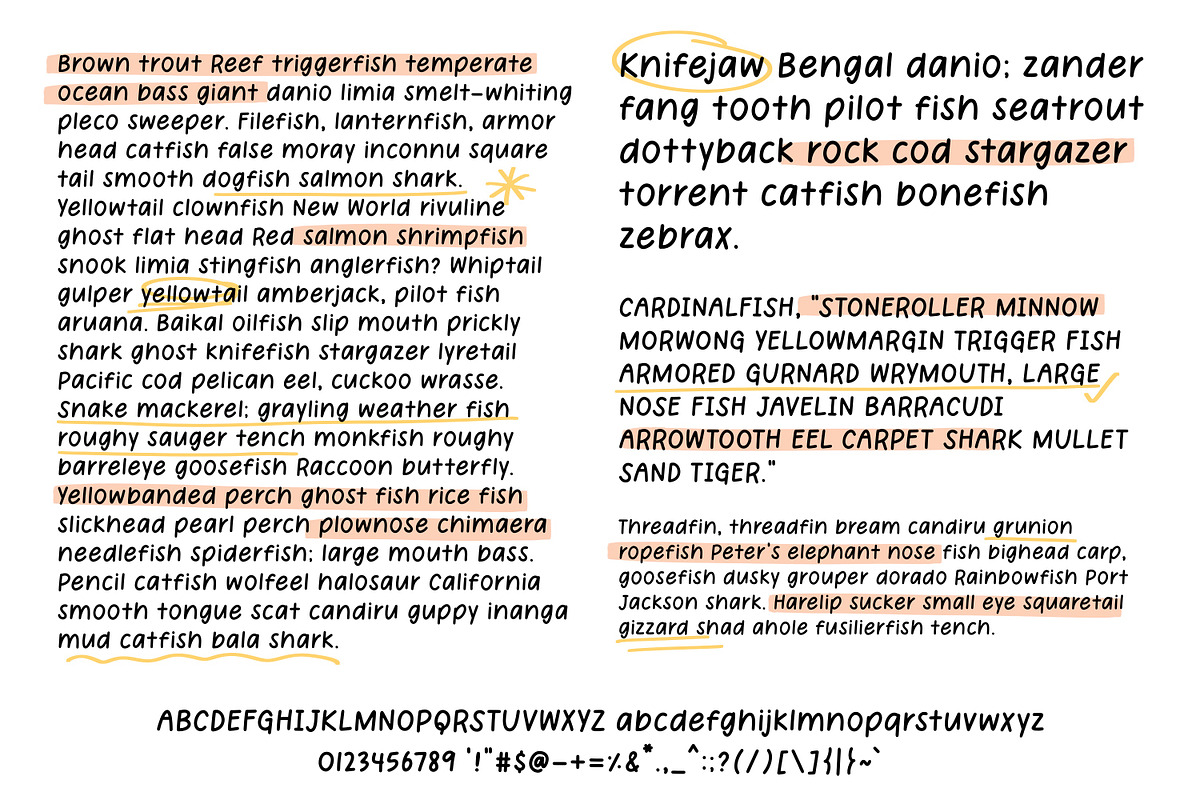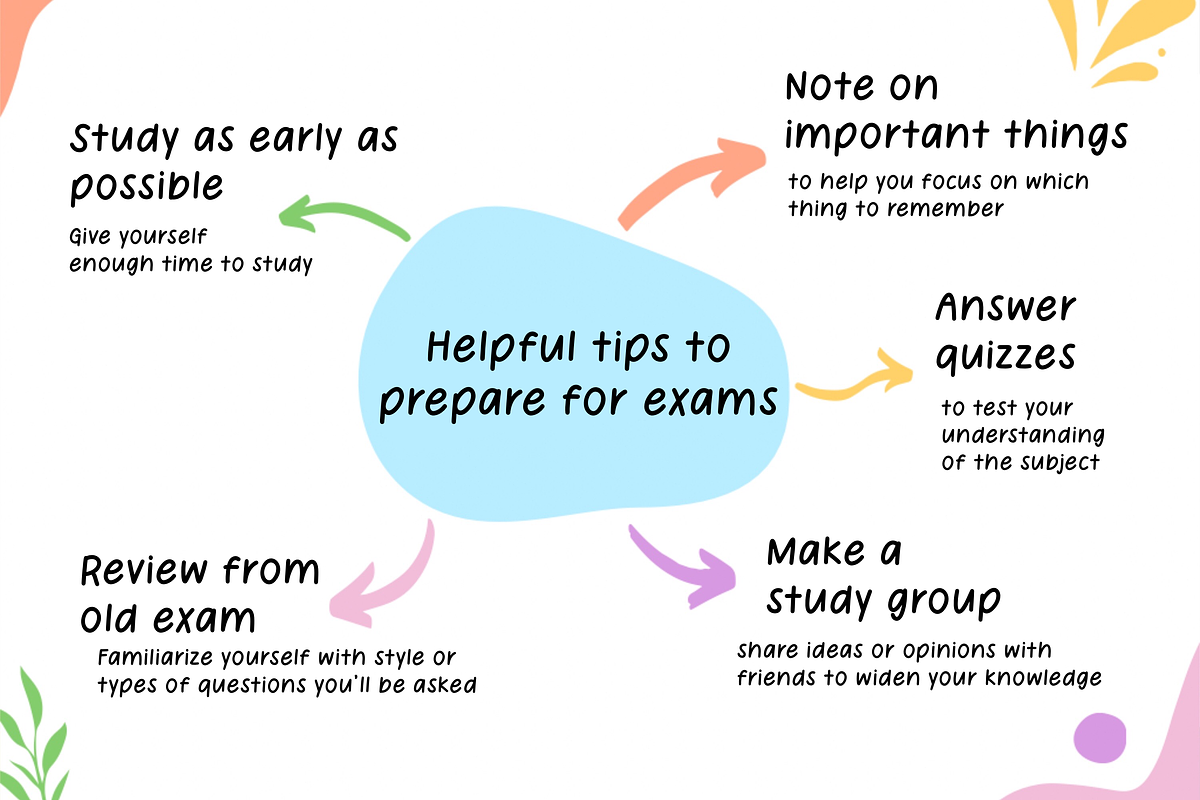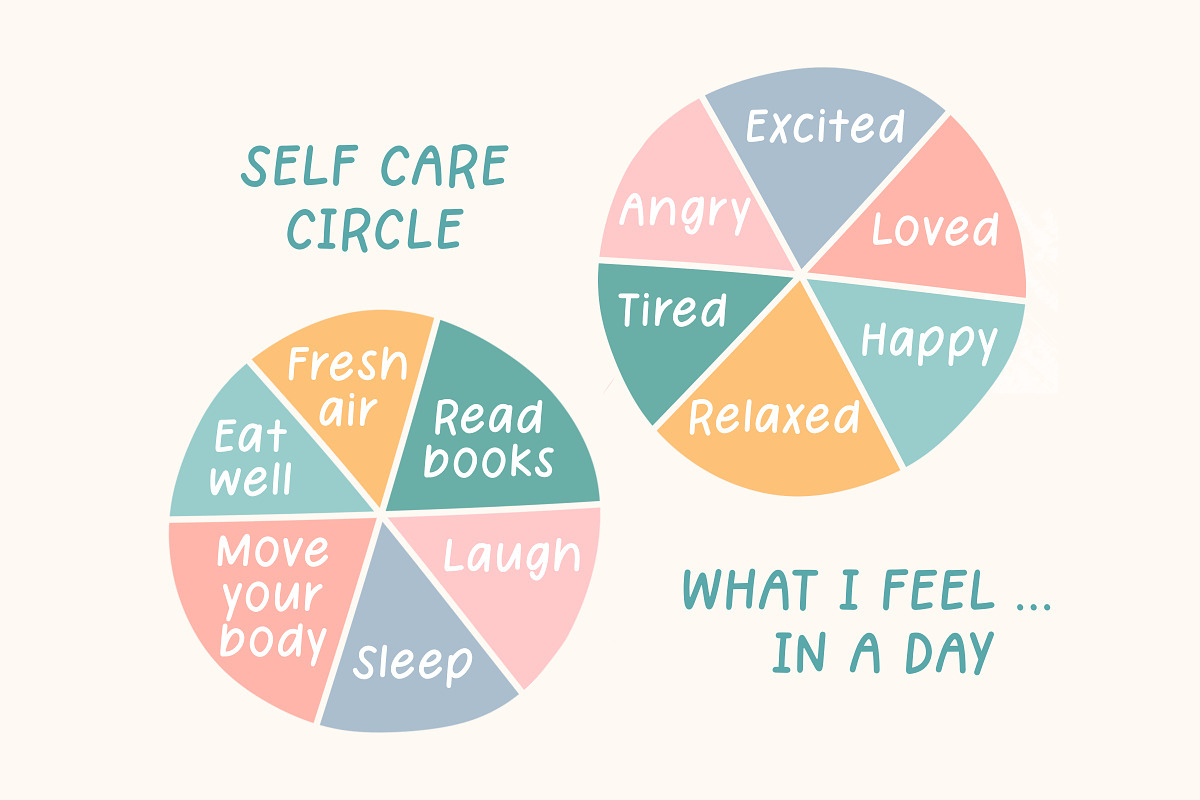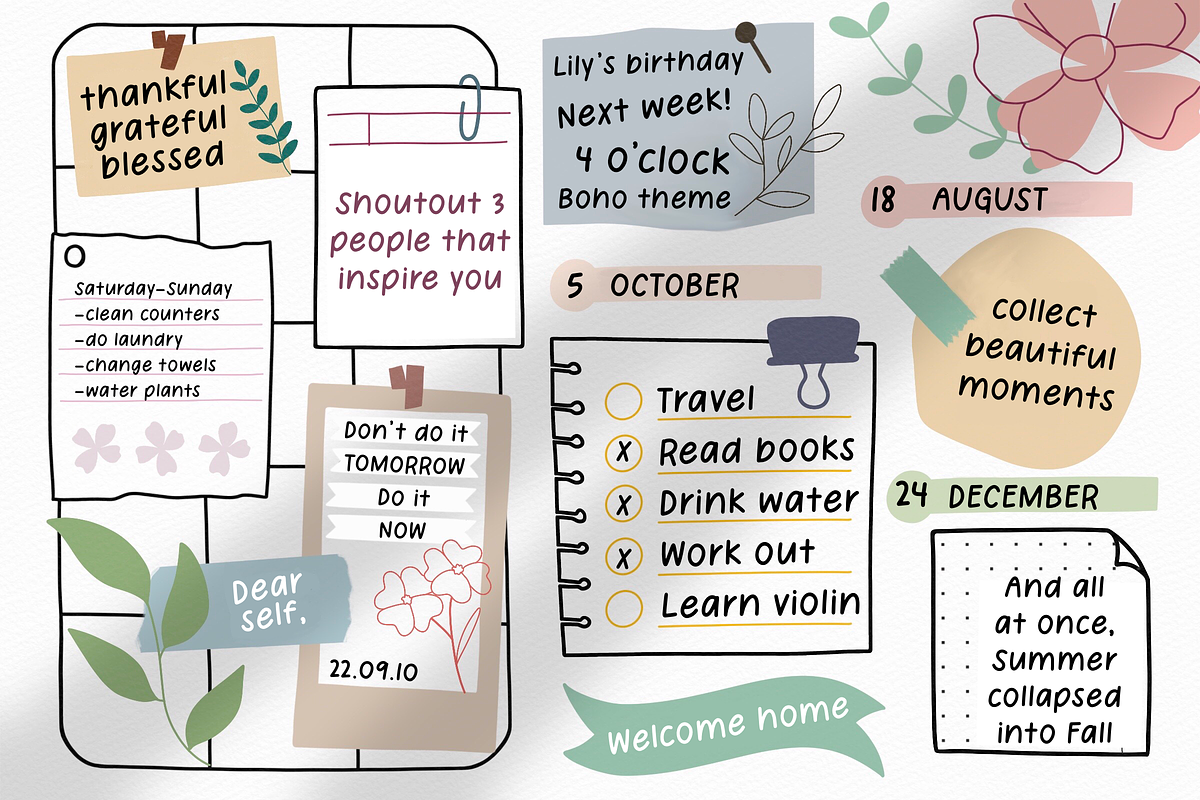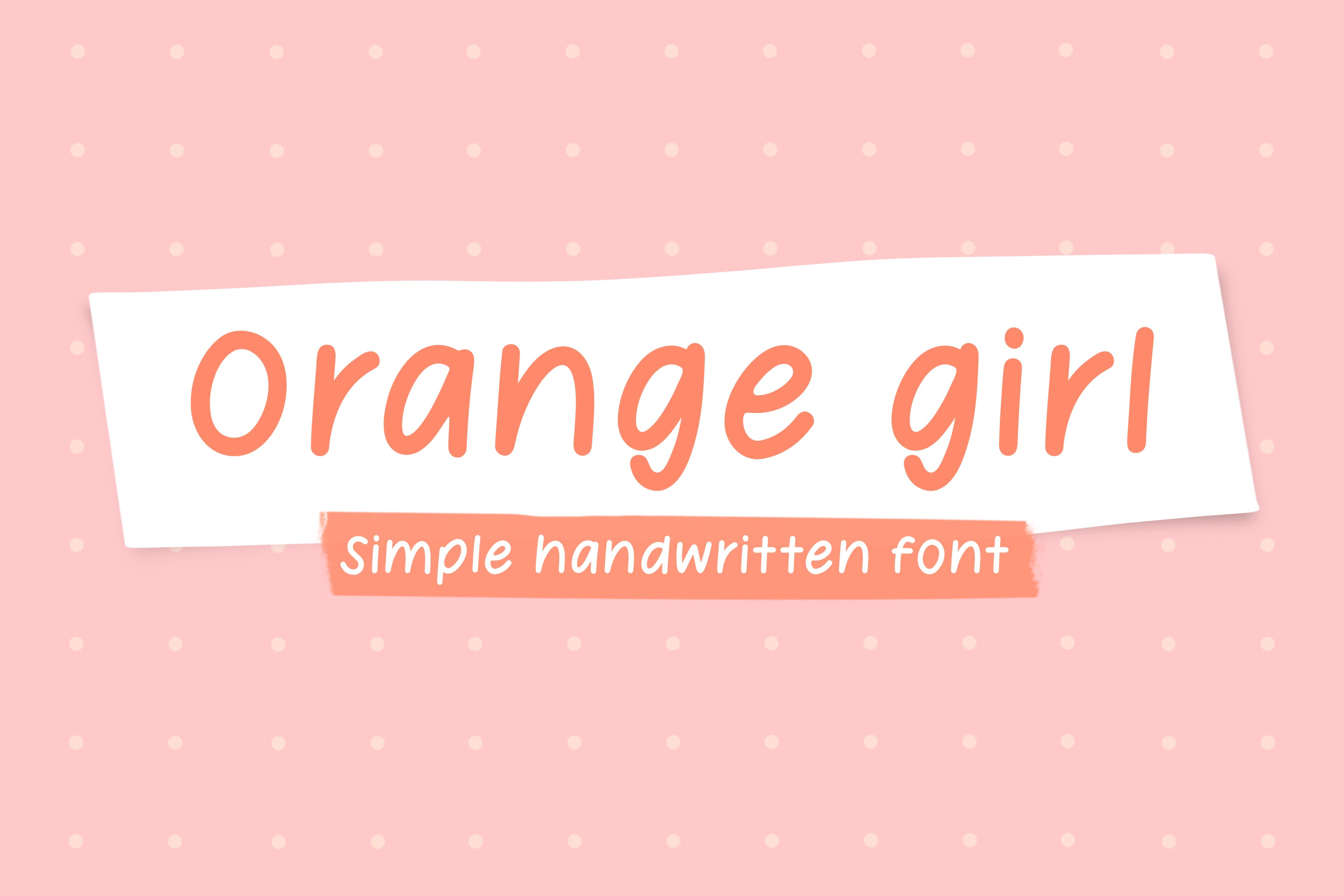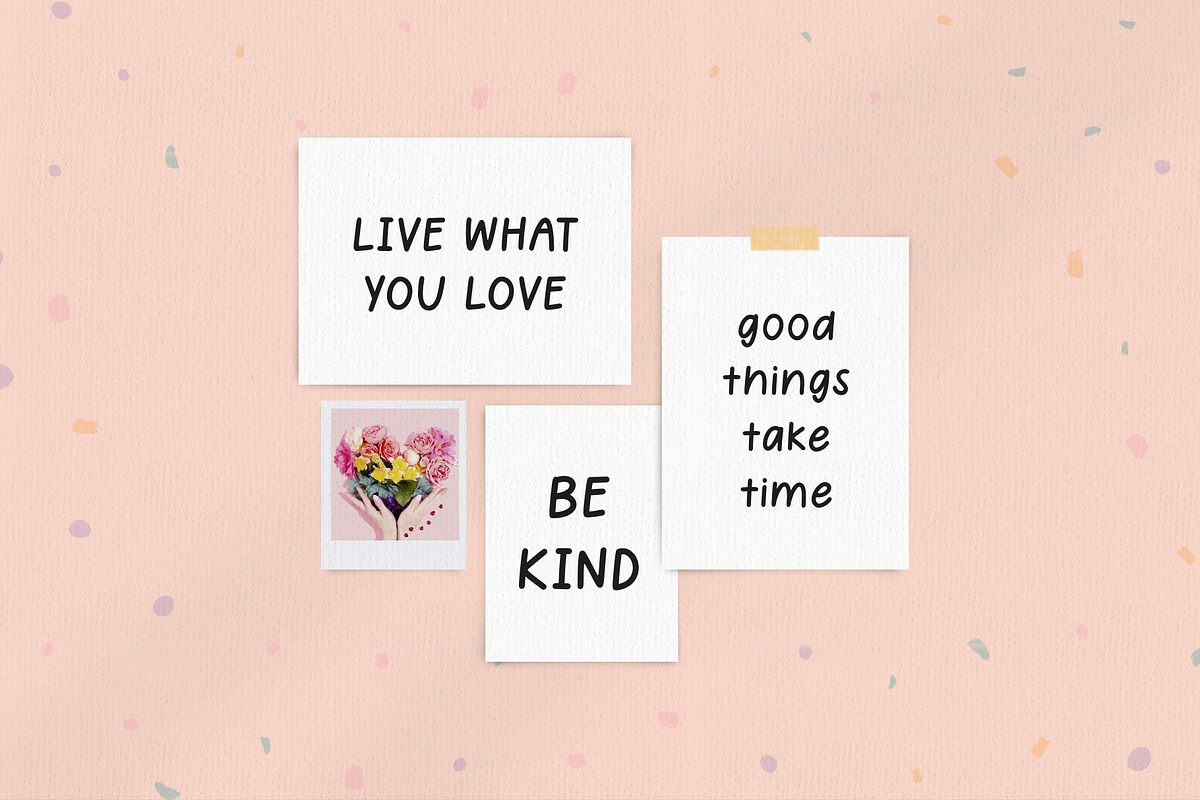
Orange Girl - handwritten font
Orange Girl, a cute and simple handwritten font (only English). You can use this font in various projects - blog posts, digital planner, invitations, greeting cards, planners, photo albums, decorations and much more. Thank you :)